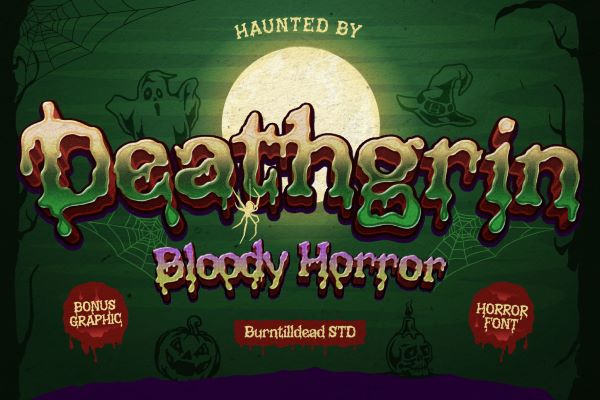
Deathgrin Font
Deathgrin by Eric Burntilldead is a bold, chaotic freaky font that makes absolutely no apologies for what it is. Hand-drawn, irregular letterforms drip with a bloody, slimy texture — each character appearing as though it was scratched or melted into shape by something you’d rather not think about too closely. The typeface projects the kind of haunted, manic energy that feels genuinely unsettling rather than merely stylised, making it an ideal choice for Halloween posters, horror movie titles, haunted house flyers, spooky party invitations, and any design that needs to make an immediate, visceral impression.